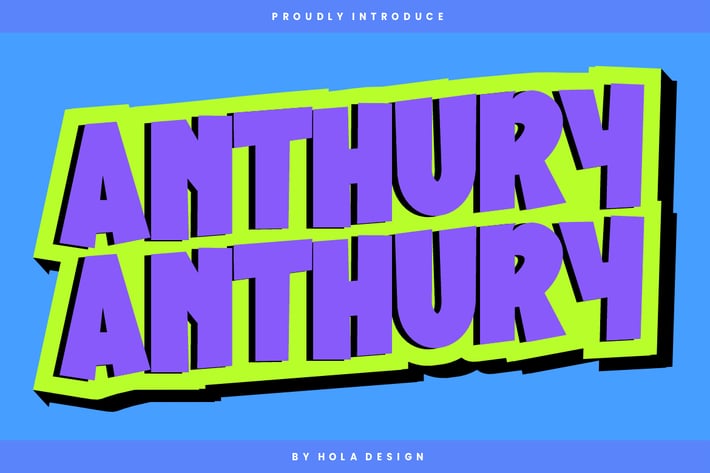
Anthury - Kids & Playful Font
Anthury - Kids & Playful Font is unique . Ready to use for your design like labeling, movie sceen, poster, movie title, gigs, album covers, logos, and much more.